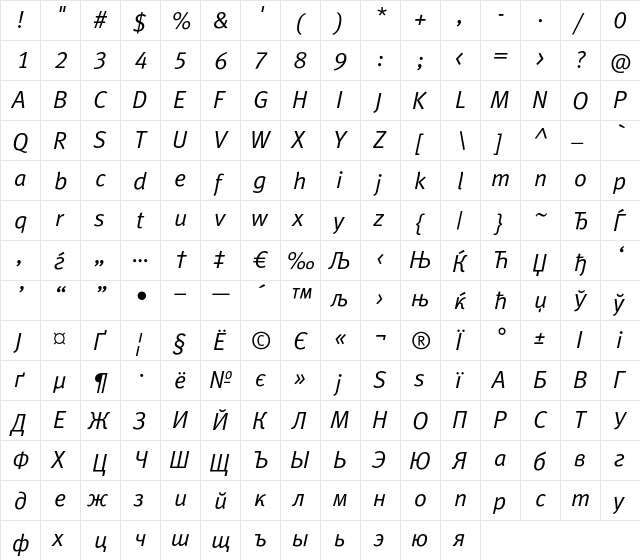
MetaNormalCyrLF-Italic Regular
Design Context for MetaNormalCyrLF-Italic Typeface
MetaNormalCyrLF-Italic is a composed and adaptable typeface that performs quietly and consistently across a wide range of design contexts. Its italic angle brings a sense of urgency and motion to the letterforms.
Pro Tip: Use MetaNormalCyrLF-Italic for emphasis, pull quotes, and subheadings where its slanted energy can add rhythm to the layout.